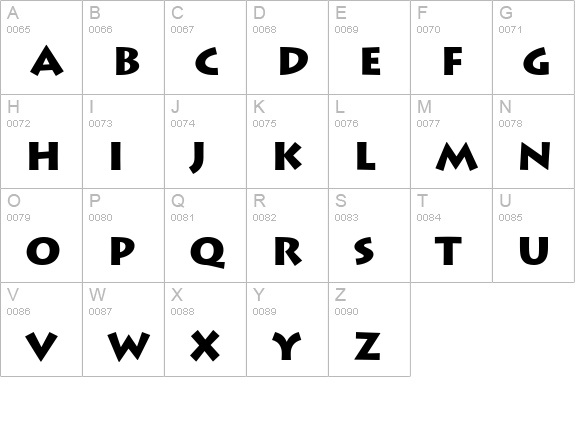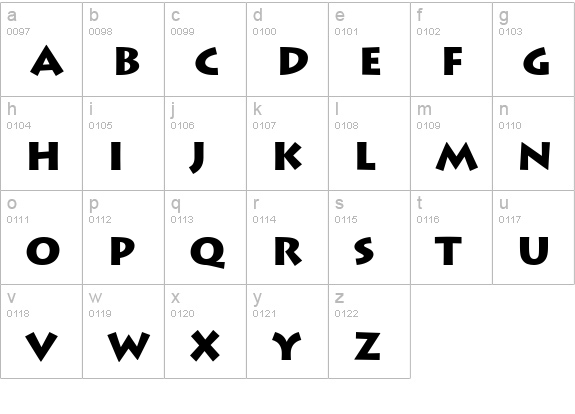
Austere Black SSi Black is a maximum-weight, dramatic variant in the Austere typeface family \xE2\x80\x94 well suited to maximum-impact headlines, posters, and packaging.
The Austere Black SSi Black font exudes a sense of sophistication and modernity with its clean lines and bold presence. This sleek and stylish typeface is perfect for adding a touch of elegance to any design project. The deep black color of the font adds a sense of seriousness and professionalism, making it ideal for corporate and formal applications. What sets Austere Black SSi Black font apart is that it is not only visually striking but also versatile and easy to read. Its streamlined design ensures that your message is conveyed clearly and effectively, making it a great choice for headlines, logos, and other prominent text elements. The best part is that Austere Black SSi Black font is available for free download at FontsMarket.com. This means you can easily access this high-quality font and use it in your projects without any cost. Whether you're a graphic designer, a student, or a business owner, this free font is a valuable addition to your toolkit. Don't miss out on the opportunity to enhance your designs with the austere beauty of this impressive typeface.